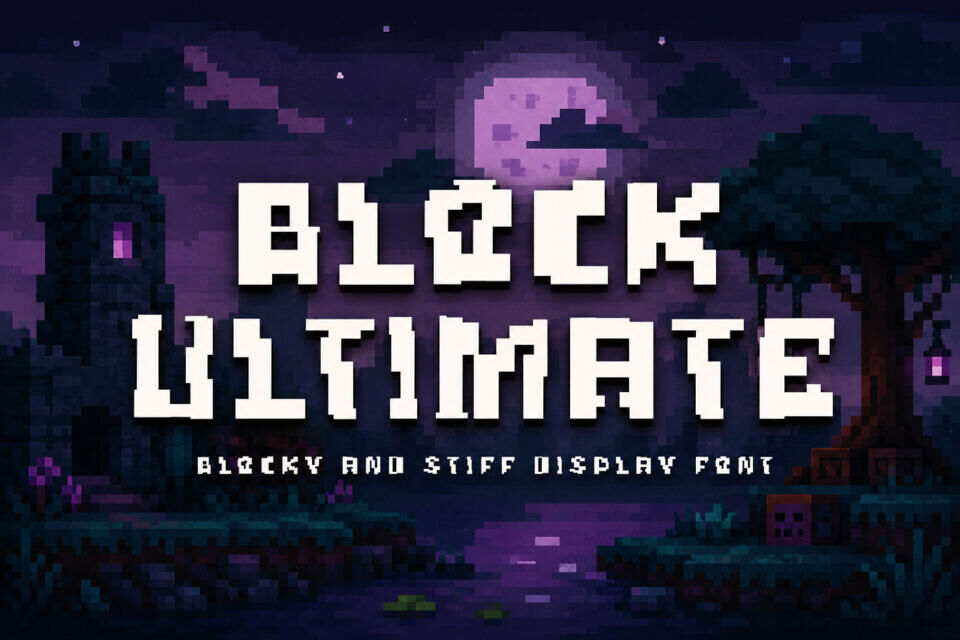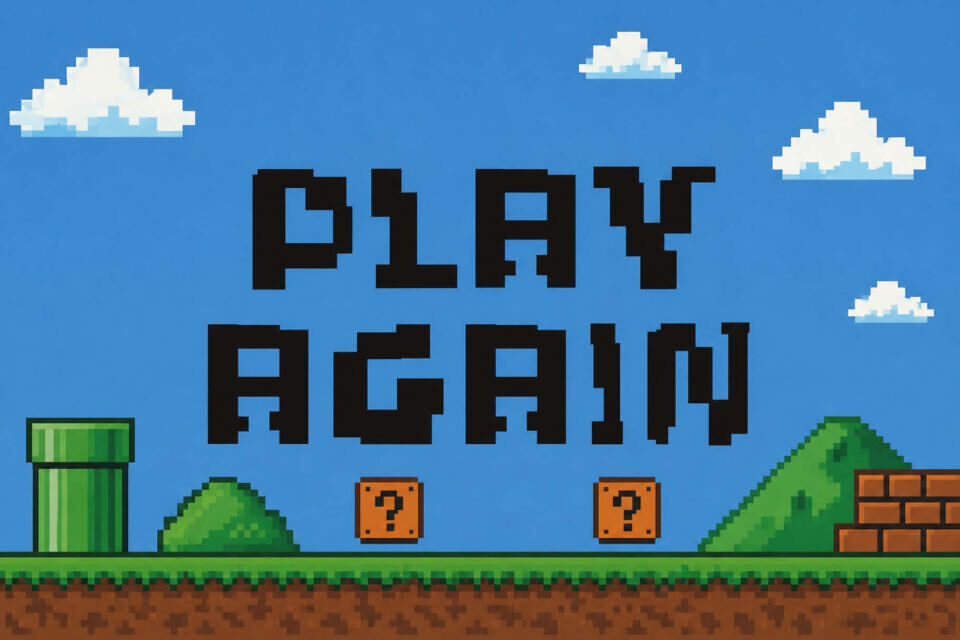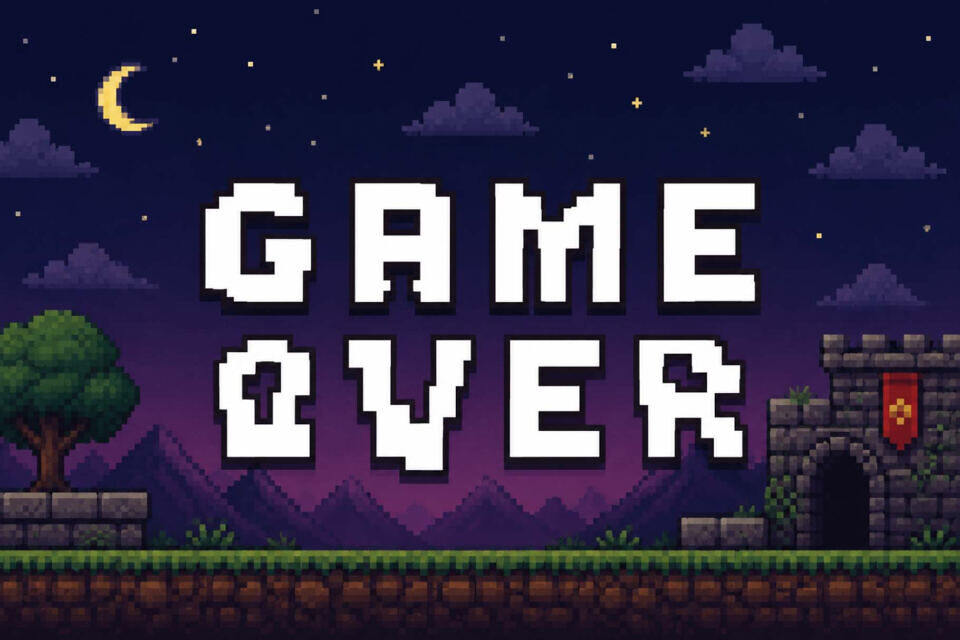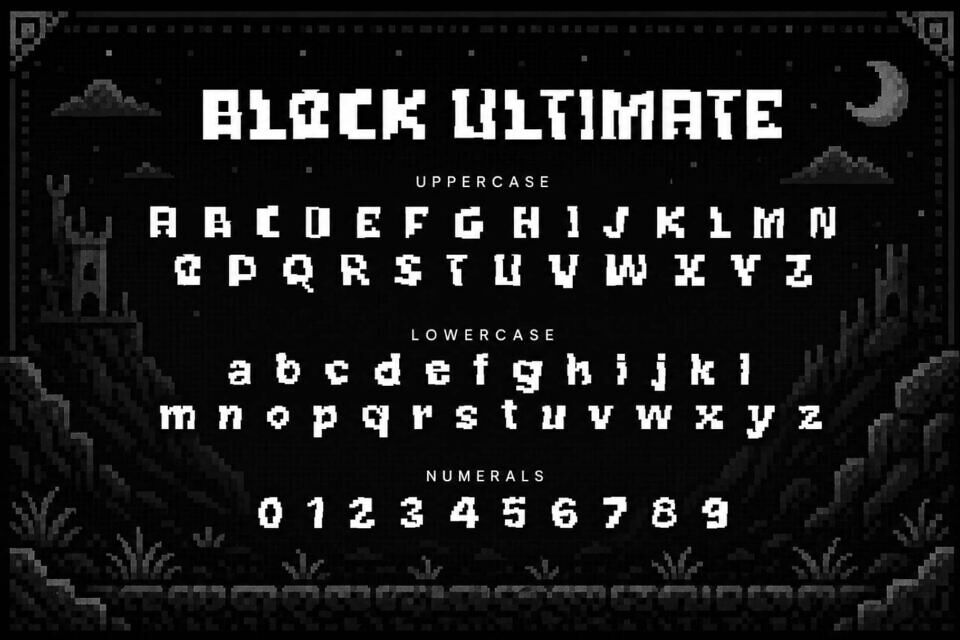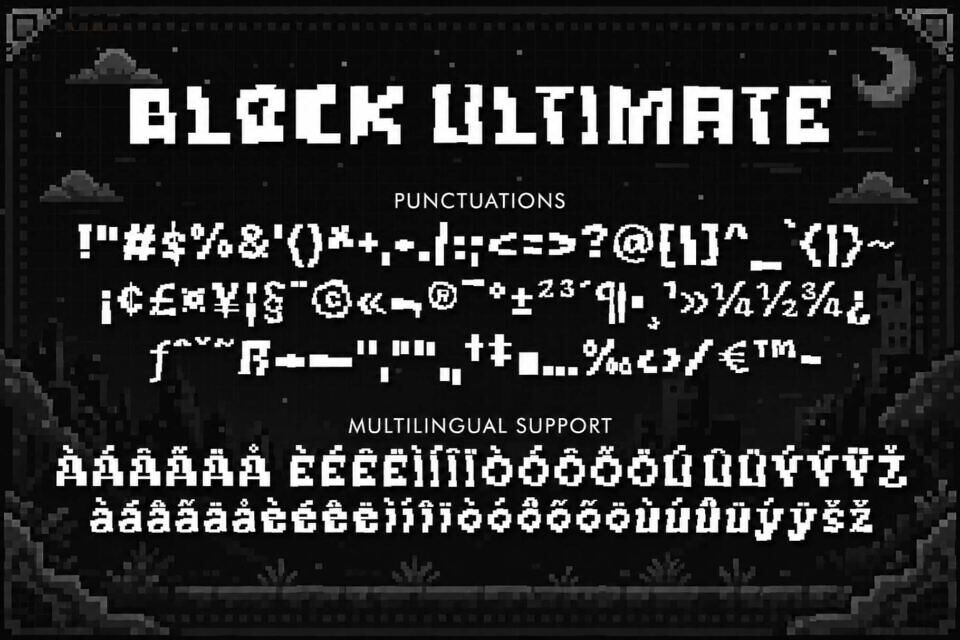
Block Ultimate Font
Block Ultimate is a bold, pixel-style display font. Featuring strong geometric shapes, sharp edges, and a nostalgic gaming aesthetic, it’s perfect for game titles, pixel art projects, posters, streaming graphics, logos, merchandise, and any digital design that requires a strong vintage gaming feel. The bold, highly legible characters make any title stand out with a fun and adventurous retro feel.